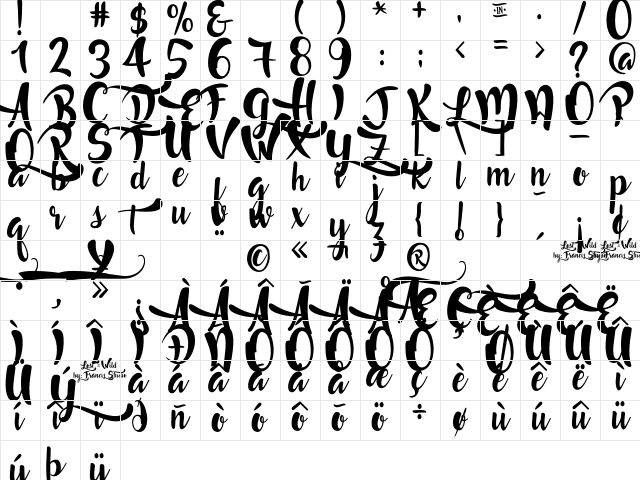
Lost in Wild Regular Free Font
Lost in Wild Regular
Foundry: Francis John S. Villo
Designer: Francis John S. Villo
Year: 2016
Design Context for Lost in Wild
Lost in Wild is a composed and adaptable typeface that performs quietly and consistently across a wide range of design contexts.